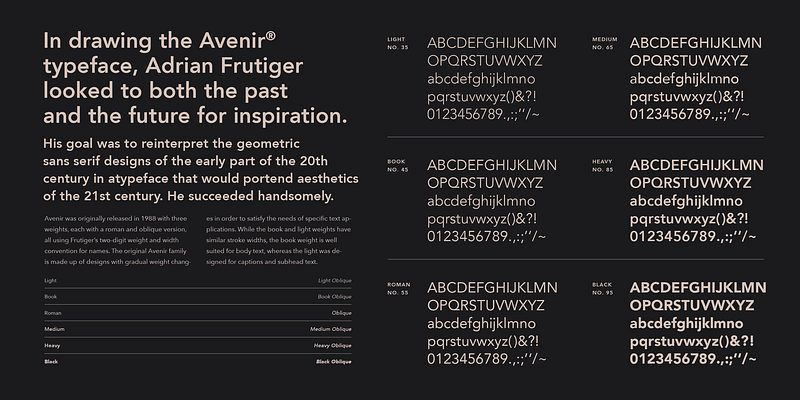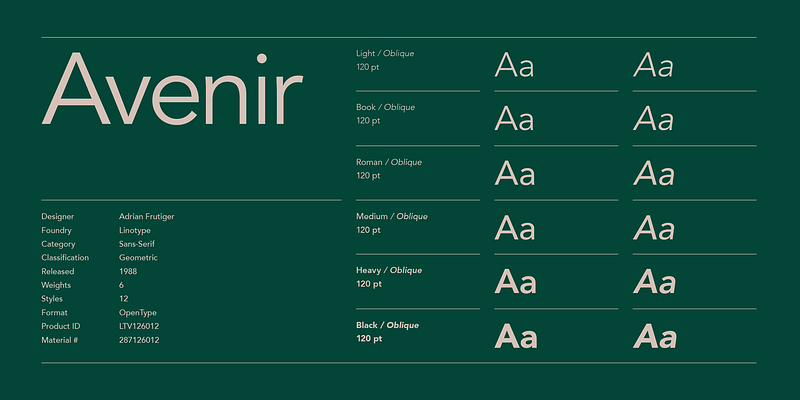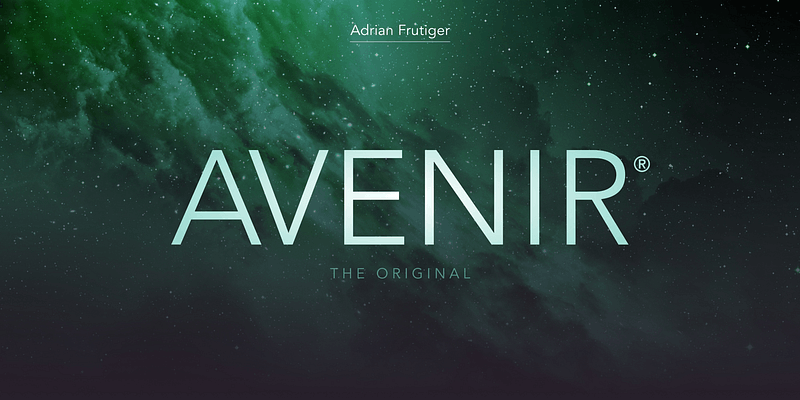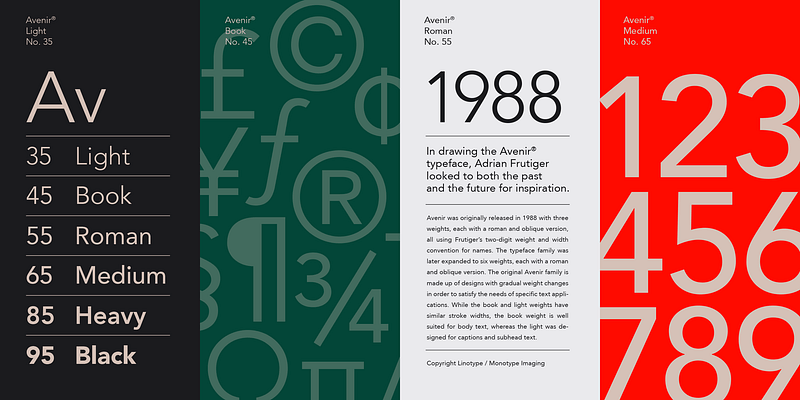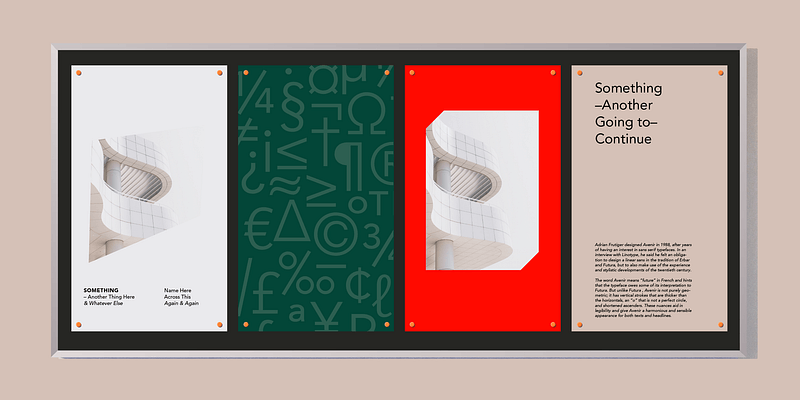
In drawing the Avenir® typeface, Adrian Frutiger looked to both the past and the future for inspiration. His goal was to reinterpret the geometric sans serif designs of the early part of the 20th century in a typeface that would portend aesthetics of the 21st century. He succeeded handsomely. In doing so, Frutiger added a bit of organic humanism to the design, freeing Avenir from the rigid geometric overtones of the earlier designs. Avenir is employed on signage at Dallas Fort Worth and Hong Kong international airports. The city of Amsterdam adopted Avenir as its corporate typeface in 2003. The original Avenir family is made up of designs with gradual weight changes in order to satisfy the needs of specific text applications. While the book and light weights have similar stroke widths, the book weight is well suited for body text, whereas the light was designed for captions and subhead text.